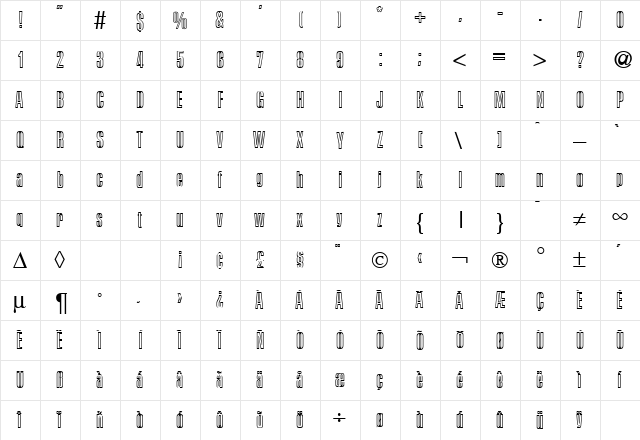
PersistentOutline Bold
Design Context for PersistentOutline Typeface
PersistentOutline brings ornamental detail and strong personality to headlines and identities, where visual impact matters more than quiet functionality. Its bold stroke weight gives it real presence on the page.
Font Pairing: Pair with a clean neutral sans-serif for body copy to let PersistentOutline's character lead without overwhelming the composition.
Pro Tip: Treat PersistentOutline as the centrepiece of your typographic hierarchy. One strong heading set in a decorative face can carry an entire layout.